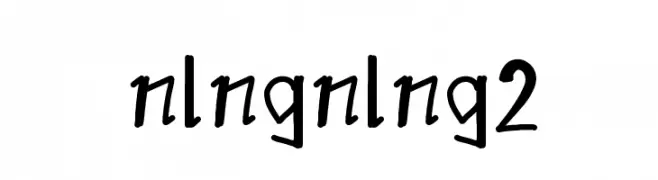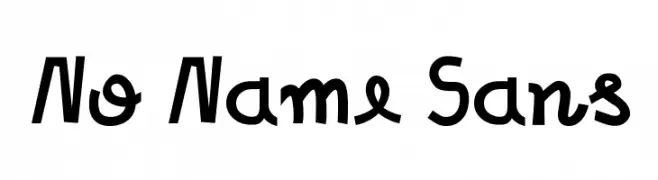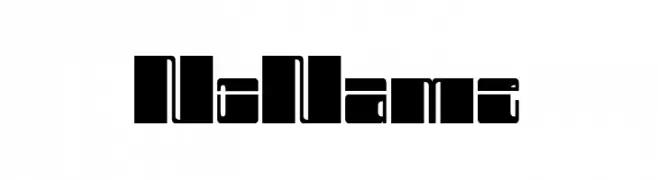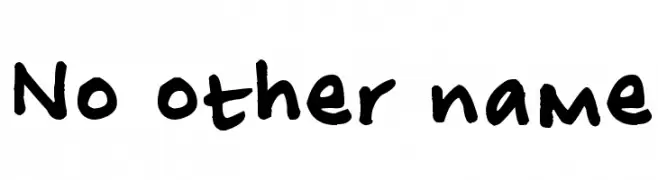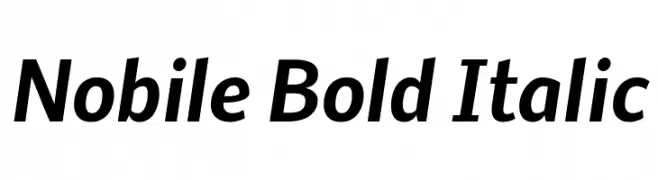
A bold, geometric font with a futuristic and digital aesthetic.
A playful, handwritten-style font with a lively and informal appearance.
A playful, bold handwritten font with a casual and friendly style.
A modern sans-serif font with a clean, balanced design.
A modern, clean sans-serif font with balanced spacing and consistent stroke width.
A modern, clean sans-serif font with uniform stroke width and rounded edges.
A modern, clean sans-serif typeface with excellent readability and versatility.
A bold, modern sans-serif font with clean lines and excellent readability.
A modern, bold, and italicized font with a clean and dynamic style.